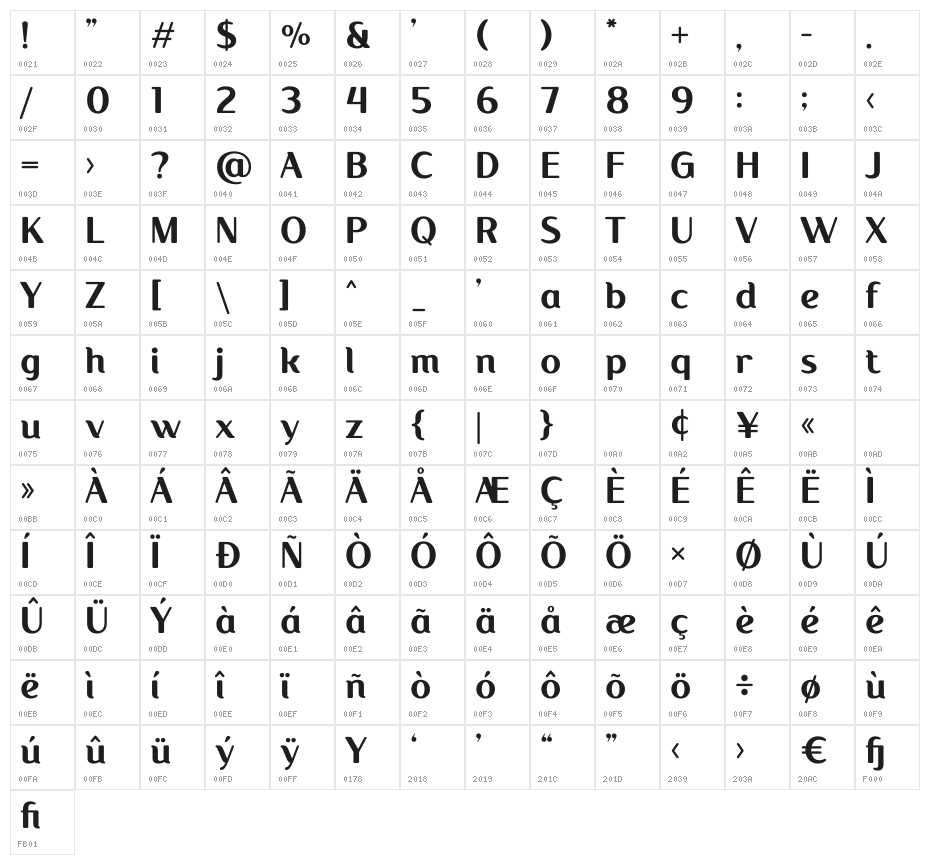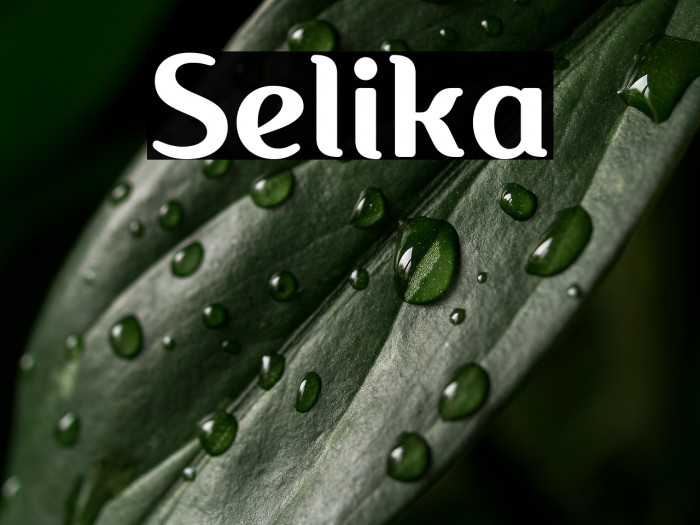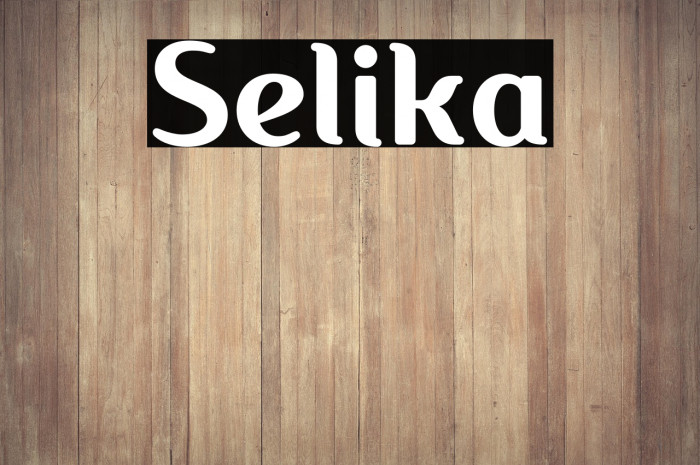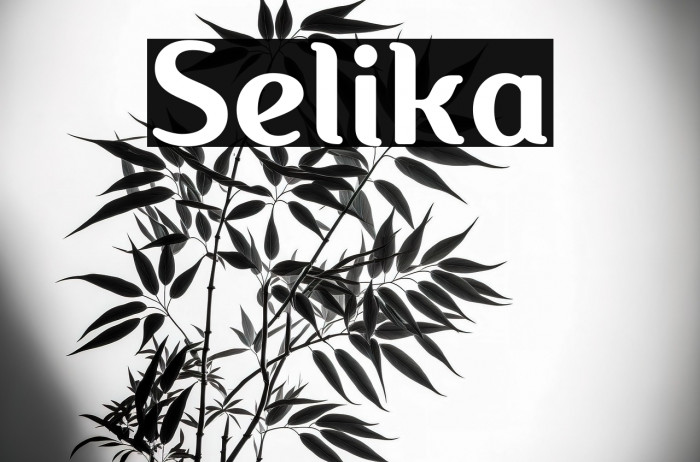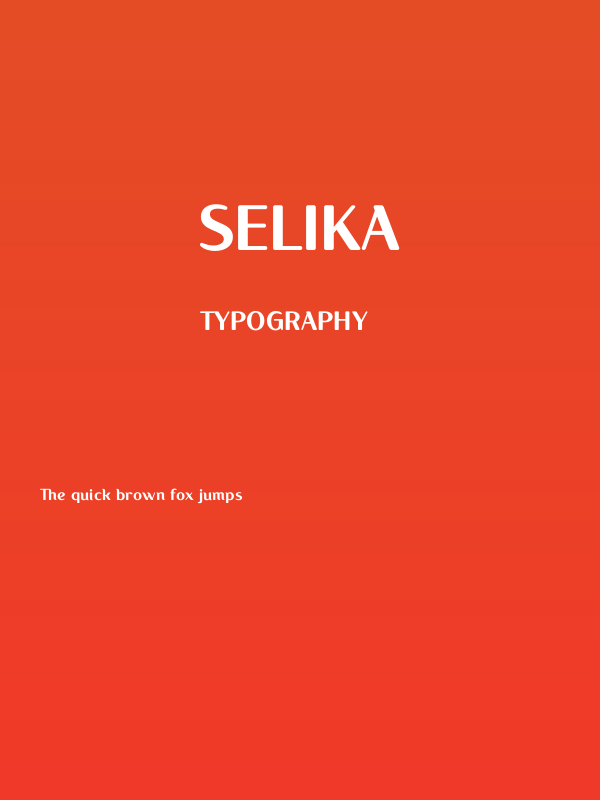
Selika Font
Selika Description
This font features a clean and modern design with a subtle elegance that is both versatile and appealing. The uppercase letters are bold and assertive, while the lowercase letters maintain a friendly and approachable feel. The numerals are clear and easily readable, making them suitable for a variety of applications. The special characters are well-crafted, adding to the font's overall utility. The strokes are consistent, with a medium contrast that enhances readability without being overpowering. This font is well-suited for both digital and print media, offering a professional yet inviting appearance.
| Use Case | Headlines, Body text, Logos |
| Proposed Projects | Ideal for branding, editorial design, advertising, and web design projects. |